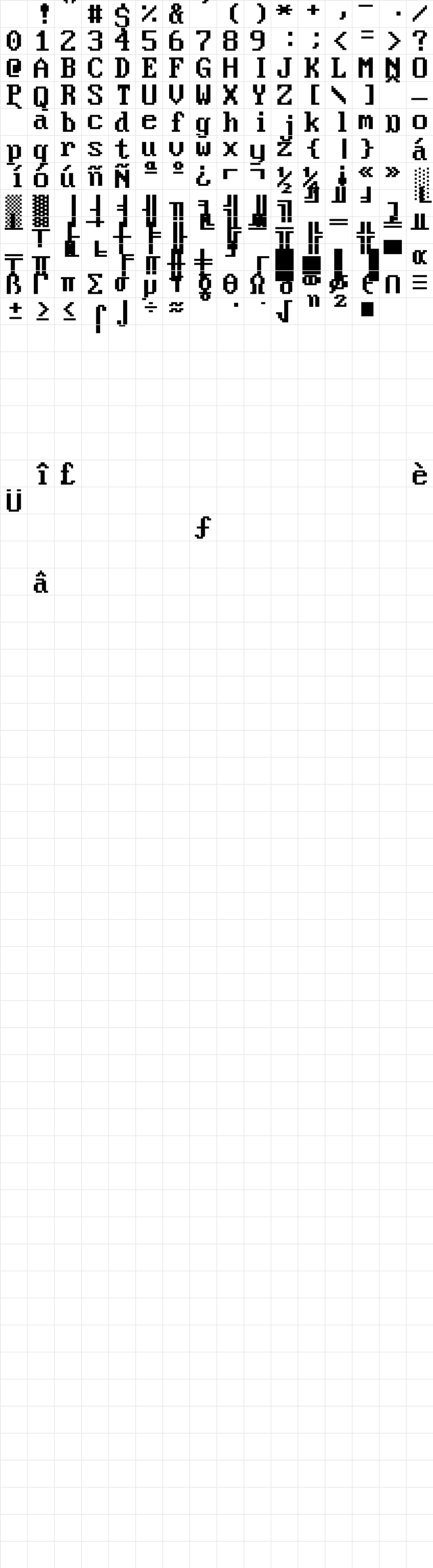
Perfect DOS VGA 437 Regular
Foundry: zeh
Design Context for Perfect DOS VGA 437
Perfect DOS VGA 437 is a composed and adaptable typeface that performs quietly and consistently across a wide range of design contexts.